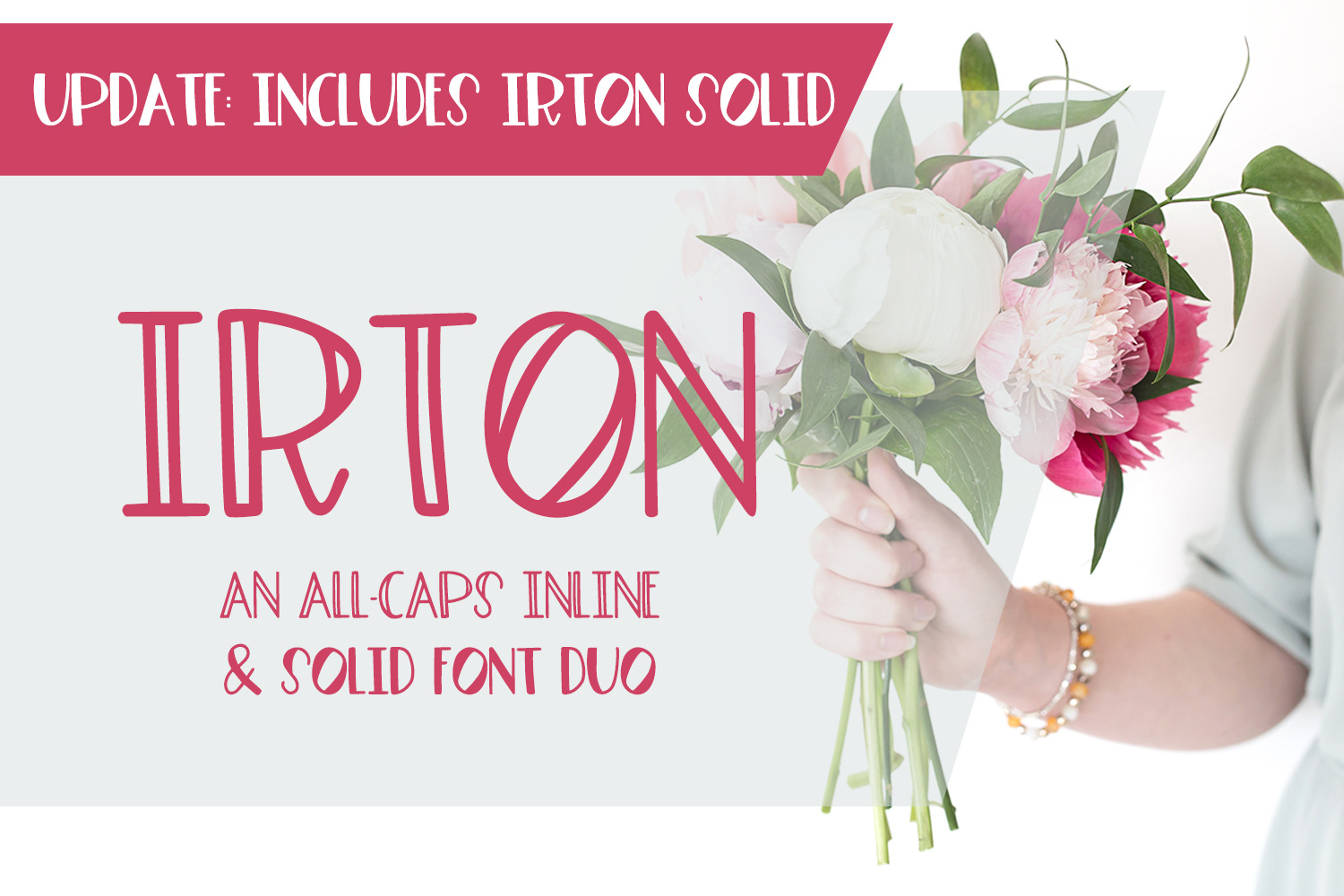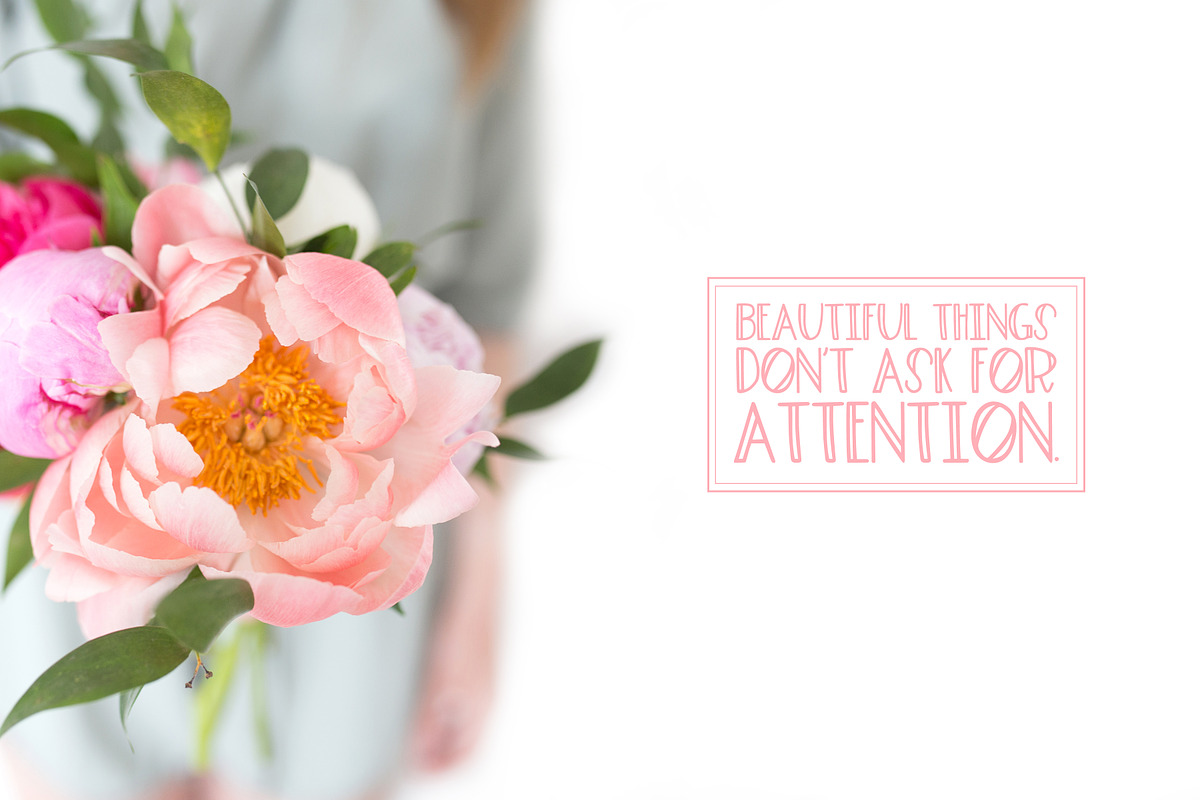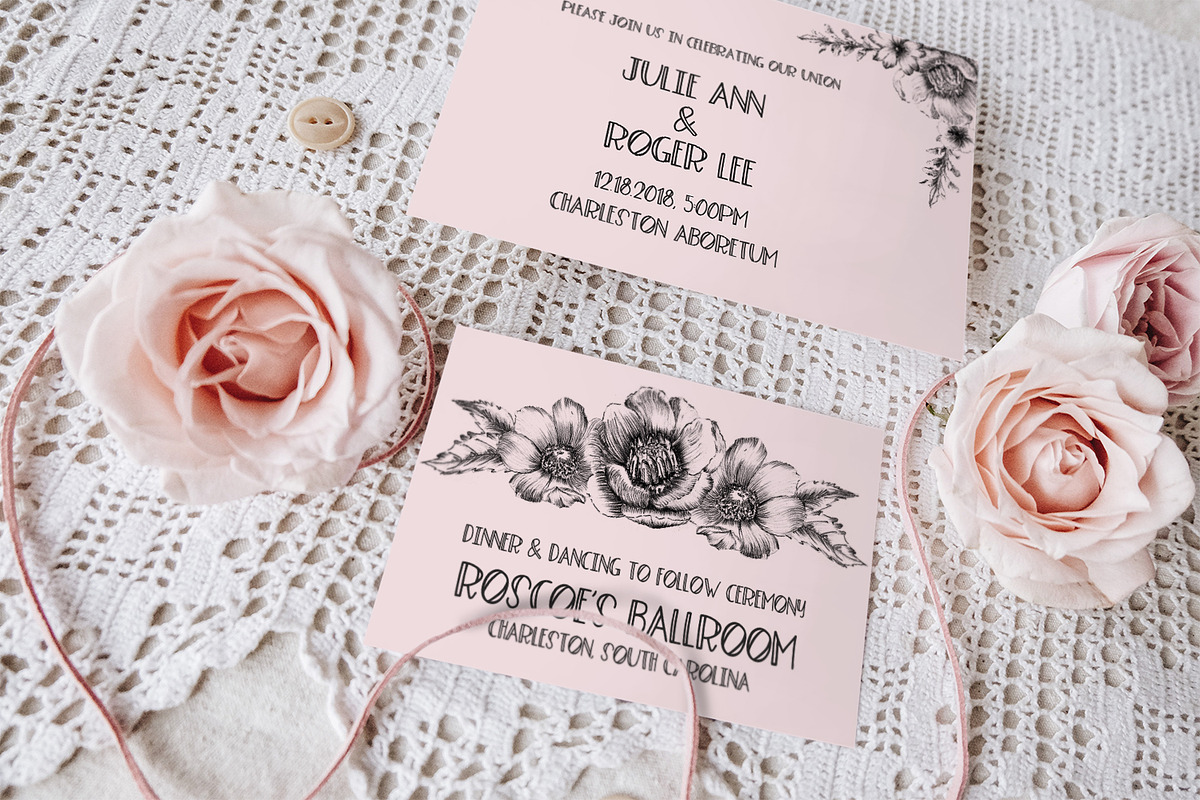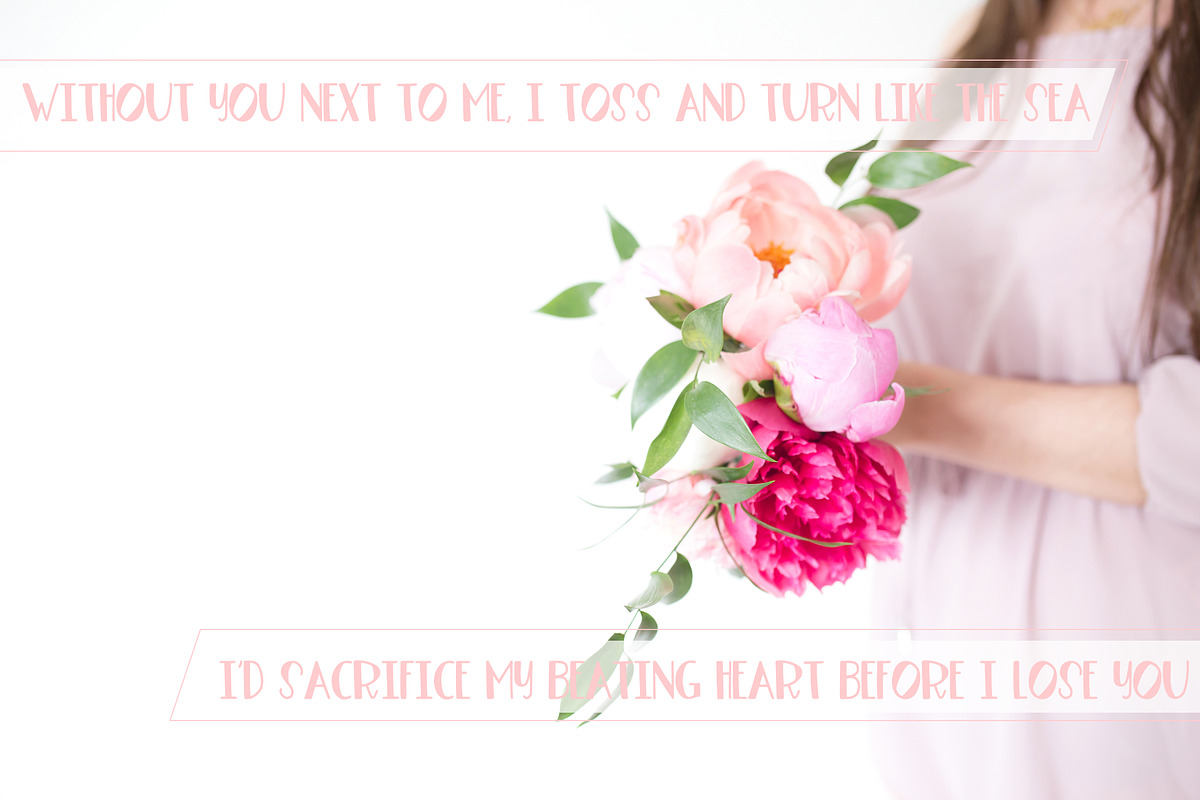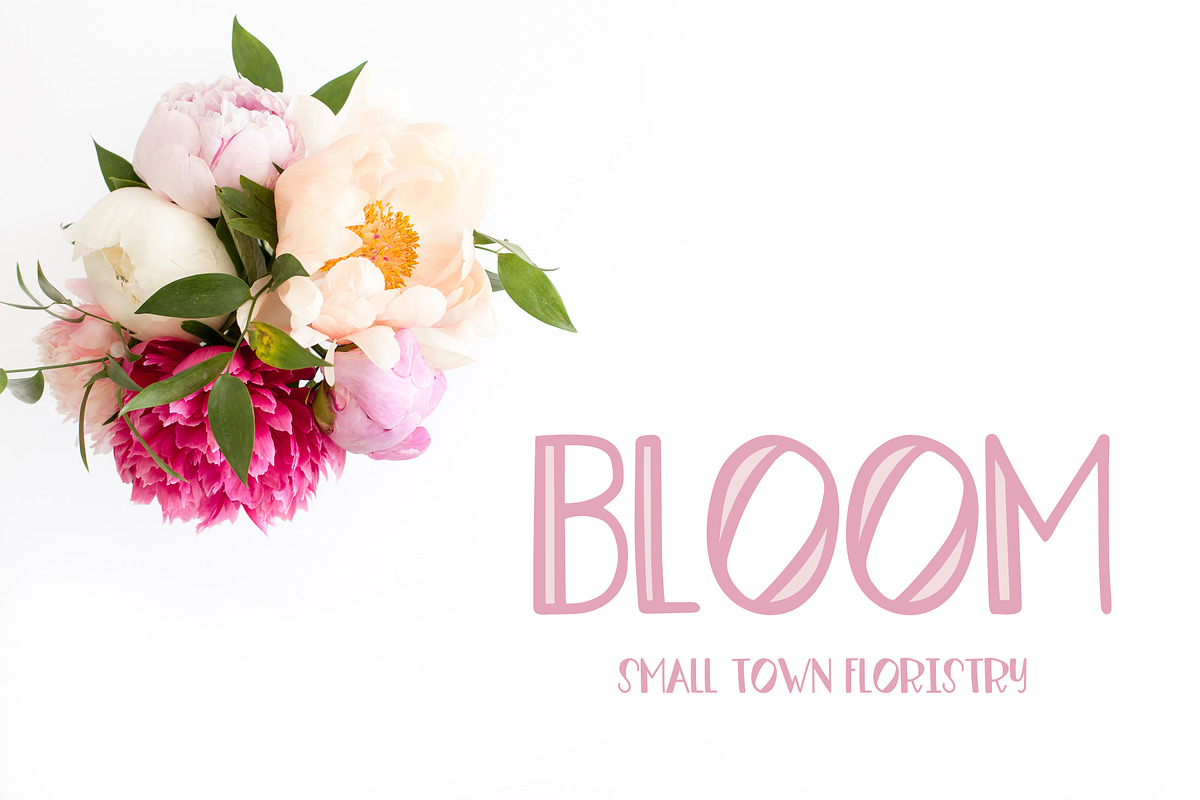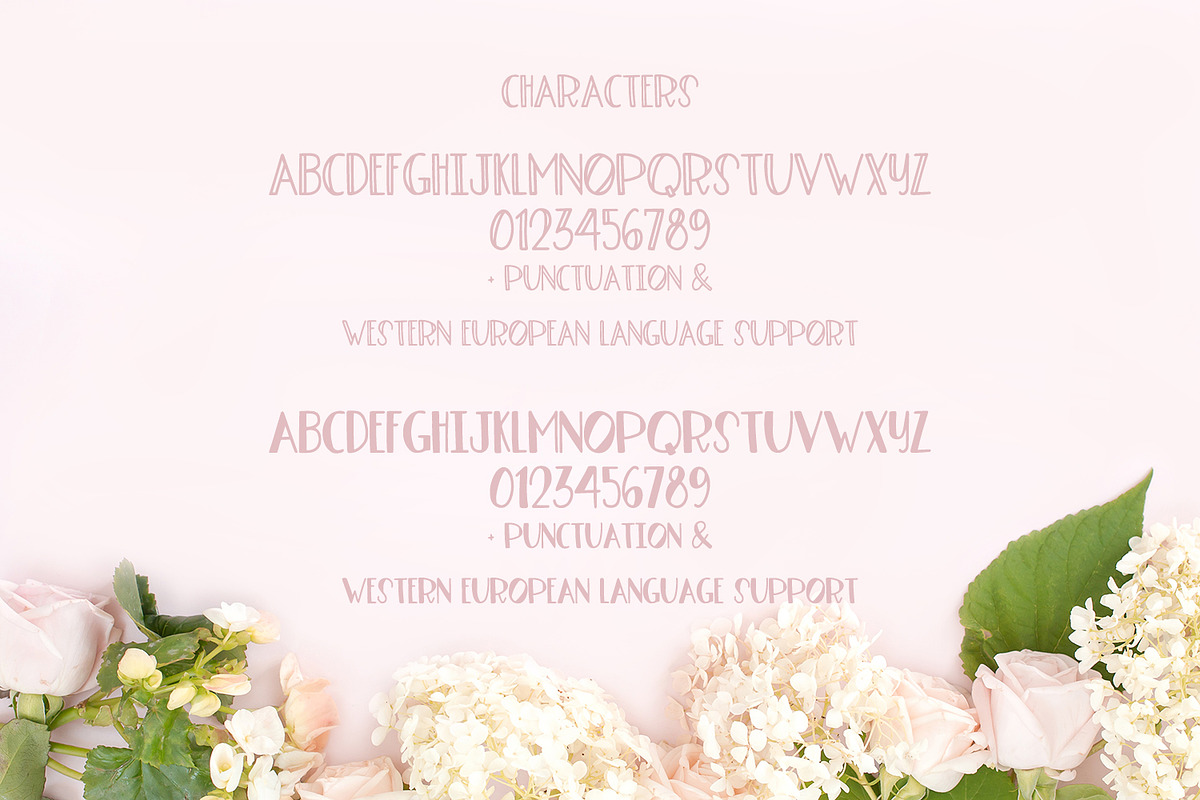
Irton Inline + Solid Sans Font Duo
Introducing Irton, an all-caps inline + solid font duo, inspired by the whimsy and quirkiness of the English Countryside. Irton works well for quote graphics, invitations, and branding, the perfect font to add to your collection for a variety of uses.
Irton's lowercase letters are programmed with the same uppercase character set for your convenience. Includes punctuation & Western European language support.